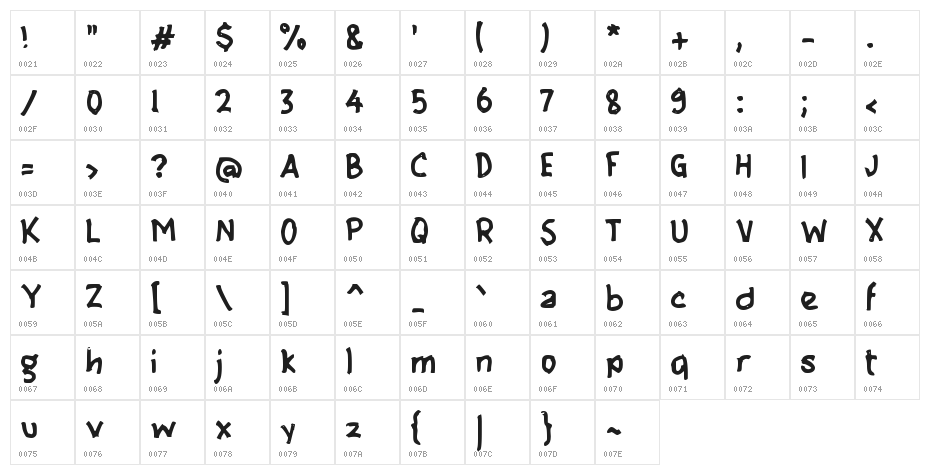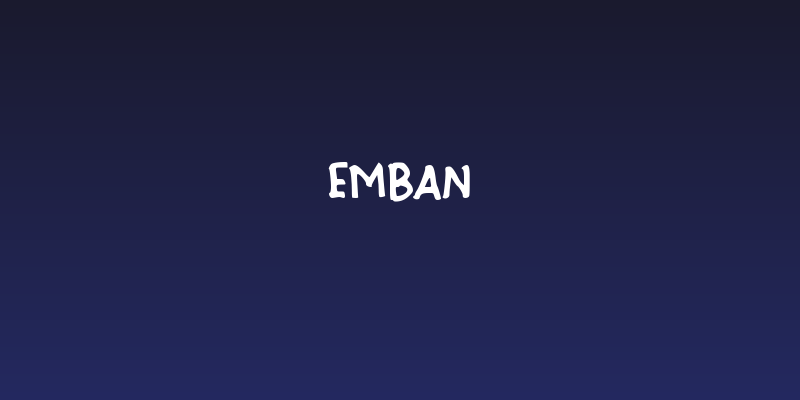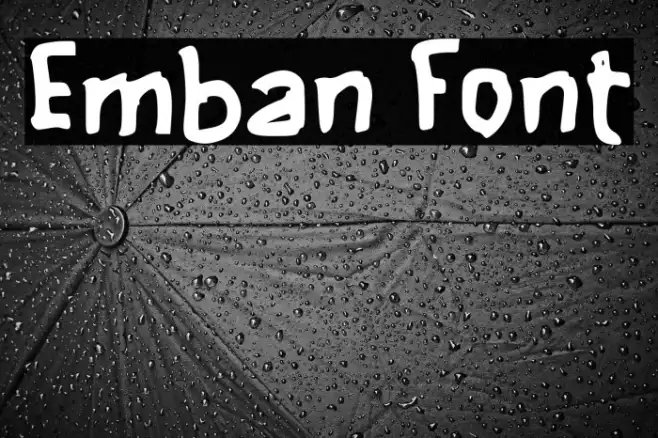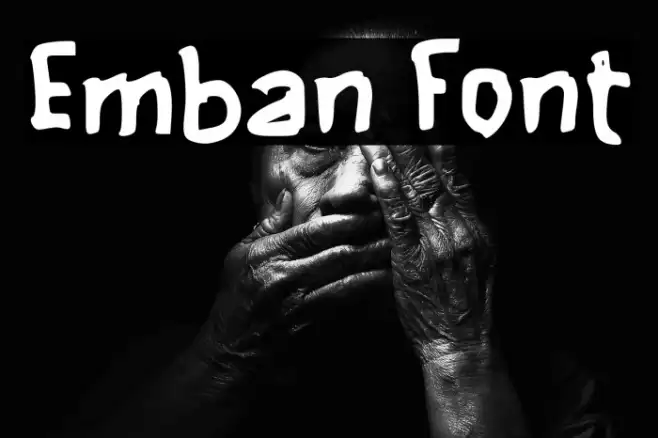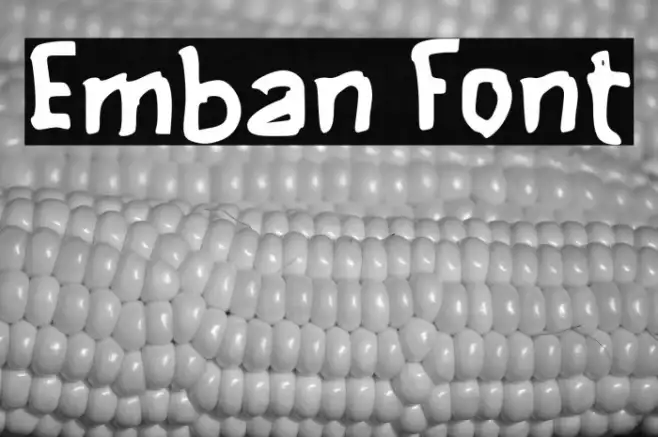
Emban Font
Emban Description
This font features a playful and bold handwritten style, characterized by its irregular and dynamic strokes. The letters have a casual and informal appearance, with varying thickness that adds a sense of movement and energy. The uppercase and lowercase letters maintain a consistent style, with rounded edges and a slightly uneven baseline that enhances its hand-drawn feel. The numerals and special characters follow the same aesthetic, making the font versatile for creative projects. Its unique charm makes it suitable for designs that require a personal touch.
EMBAN UPPERCASE
EMBAN LOWERCASE
EMBAN OTHER CHARS
| Overall Style | Playful, Casual |
| Proposed Projects | Ideal for children's books, greeting cards, playful branding, and creative posters. |